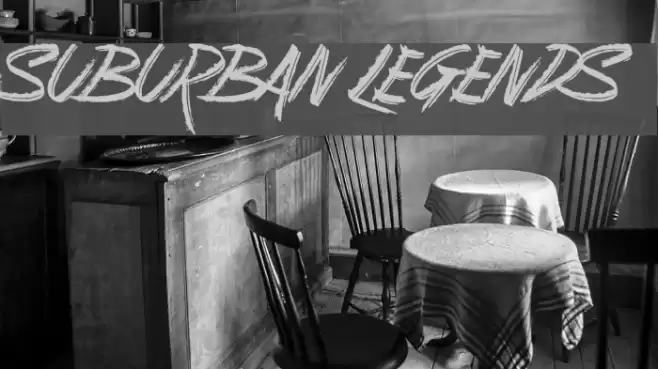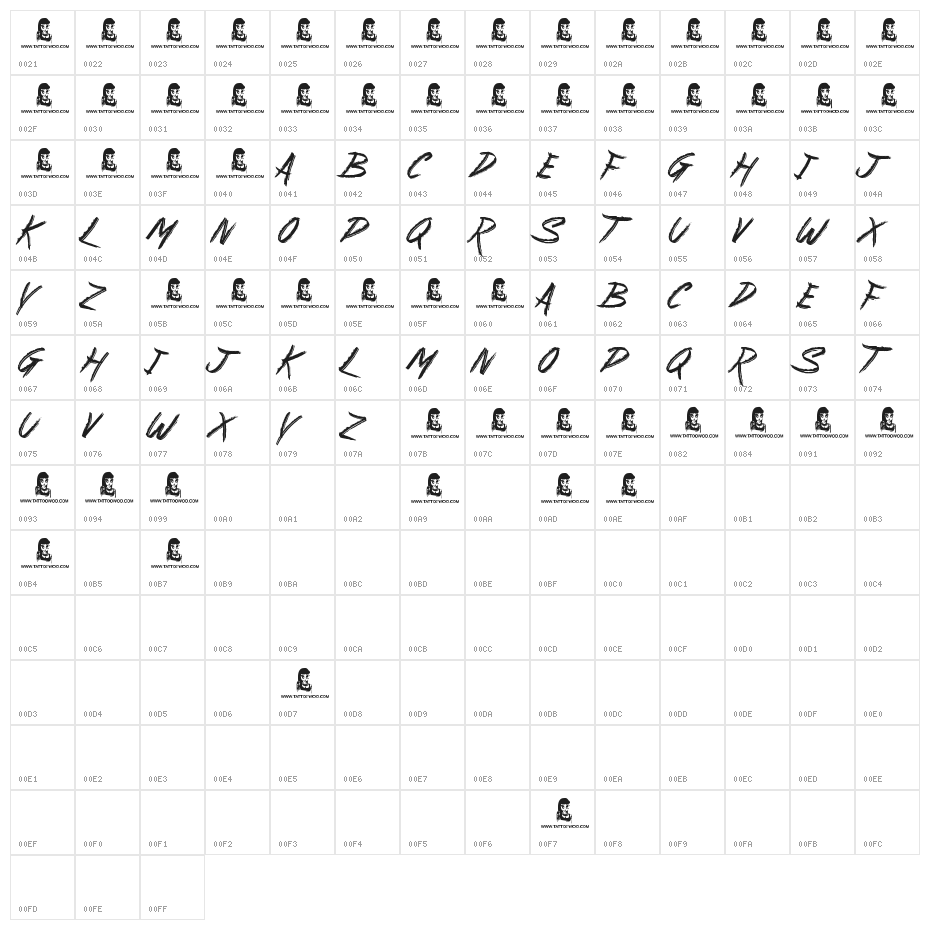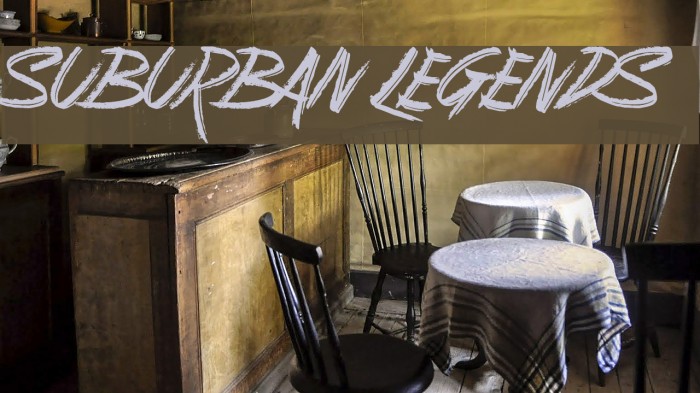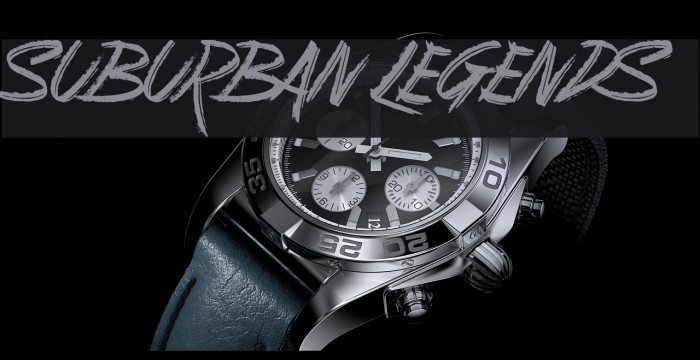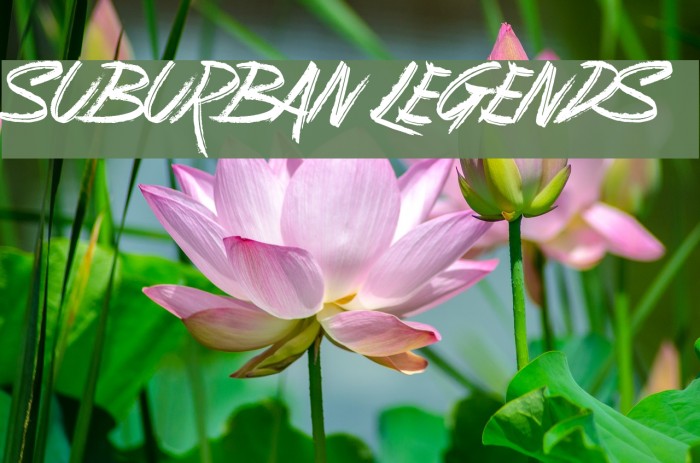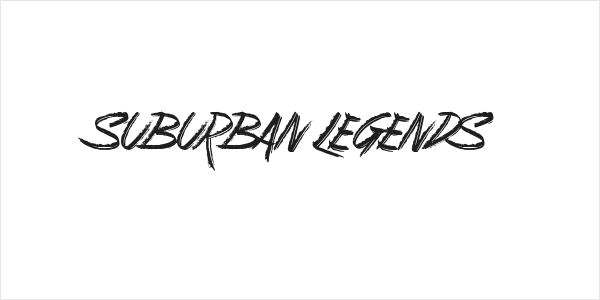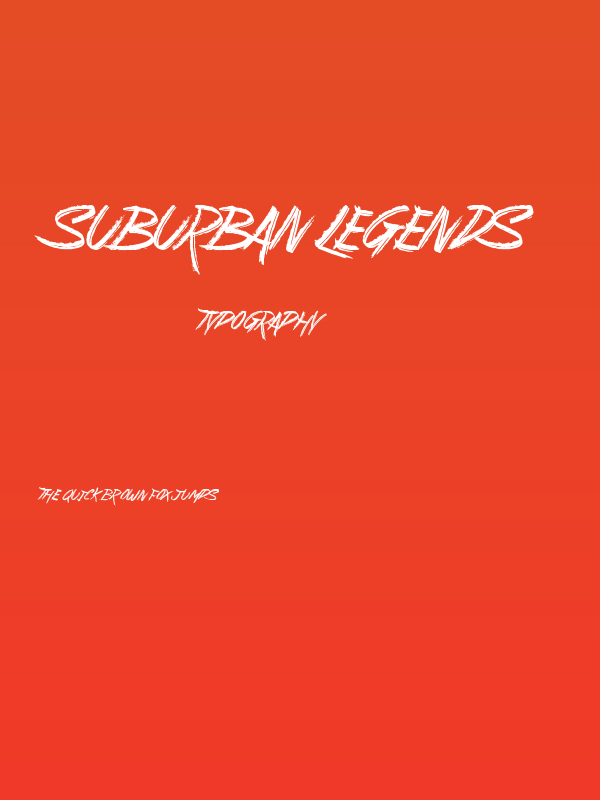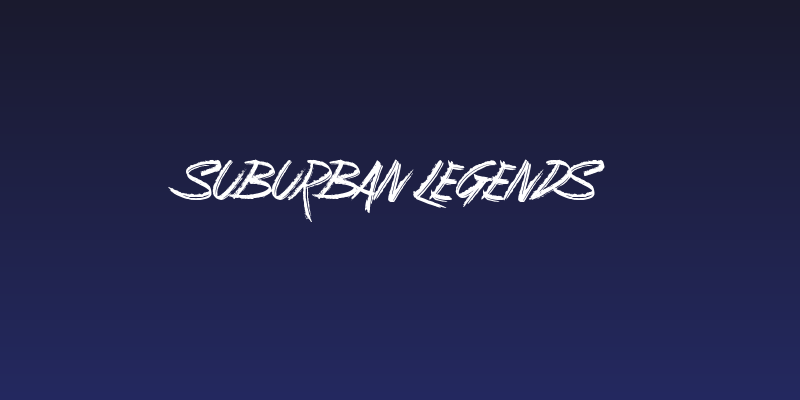
Suburban Legends Font
Suburban Legends Description
This font features a bold, energetic style with a brush-like texture, giving it a dynamic and edgy appearance. The letters are slightly slanted, adding a sense of motion and fluidity. The strokes are uneven, with varying thickness that creates a hand-drawn effect. This font is highly expressive, making it suitable for projects that require a strong visual impact. The uppercase and lowercase letters maintain a consistent style, ensuring readability while retaining their artistic flair. The overall design is modern and eye-catching, perfect for capturing attention.
A bold, brush-style font with dynamic, hand-drawn characteristics from Uncategorized fonts.